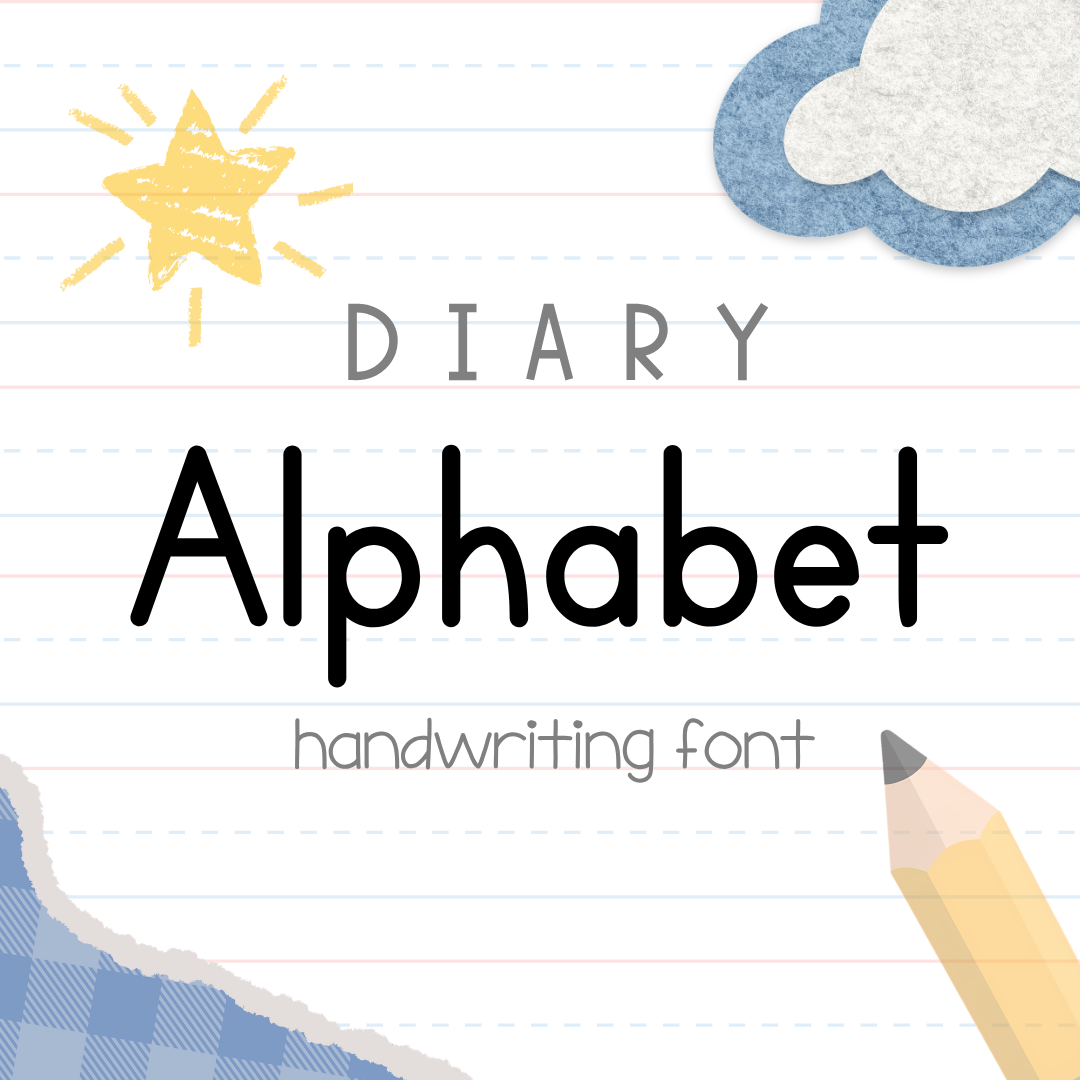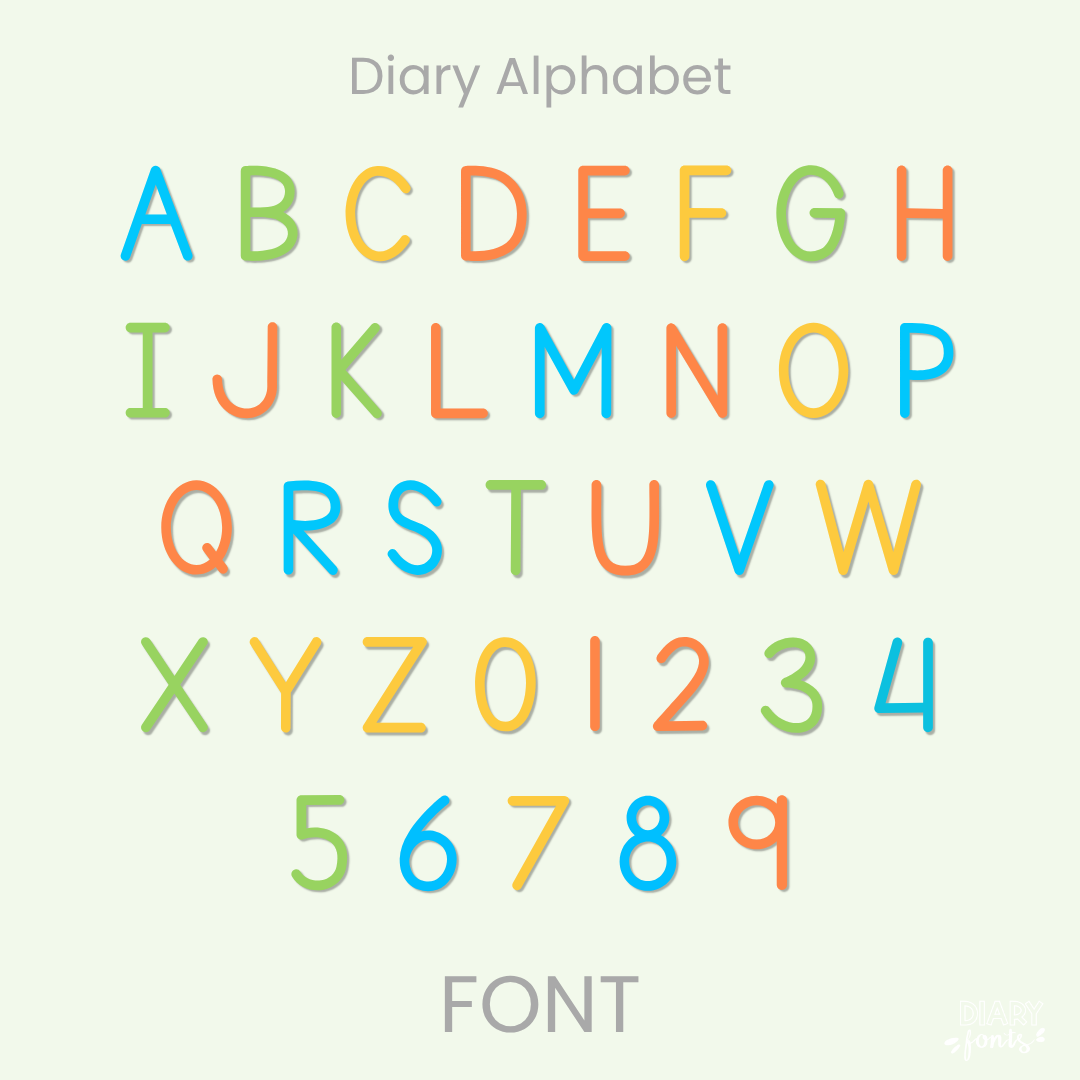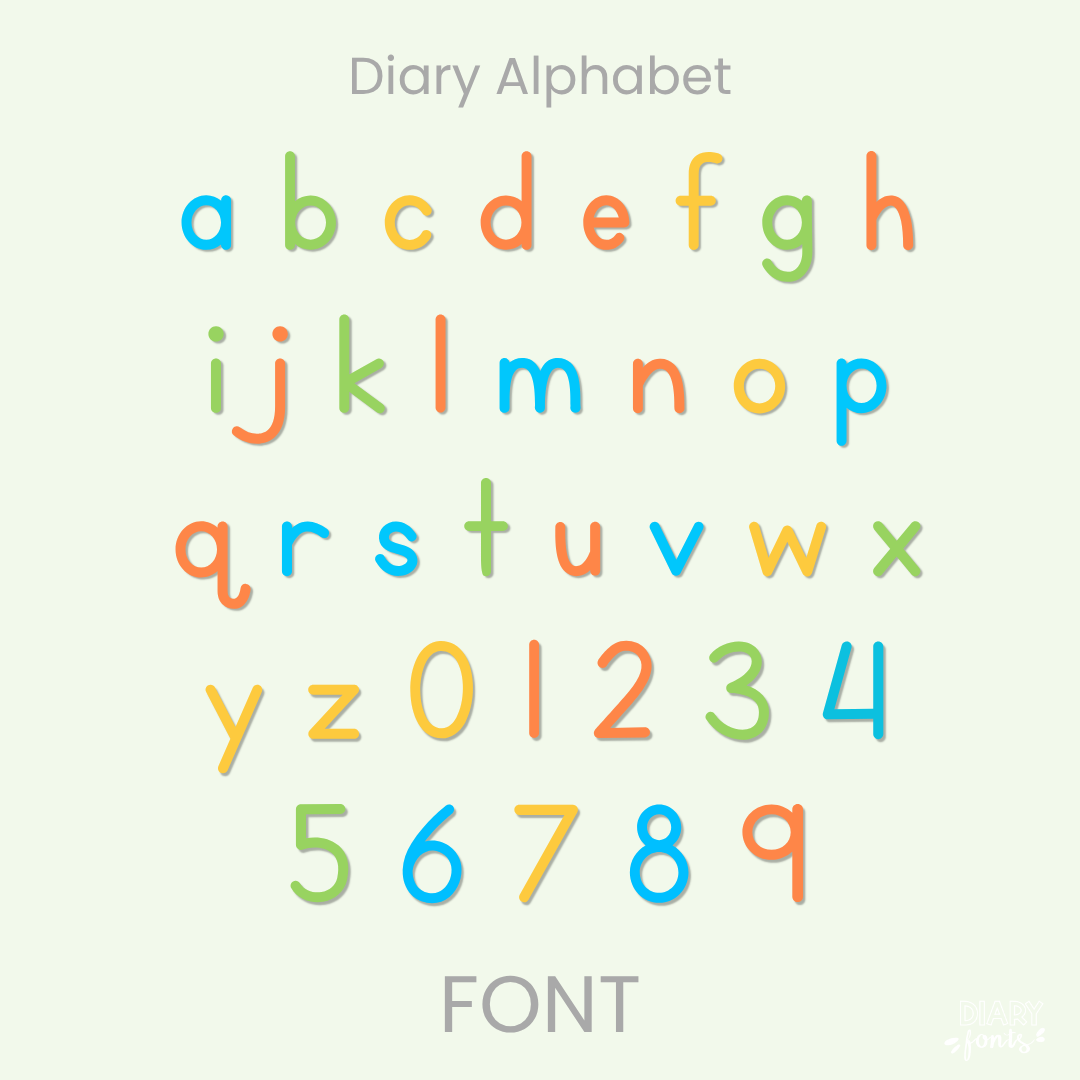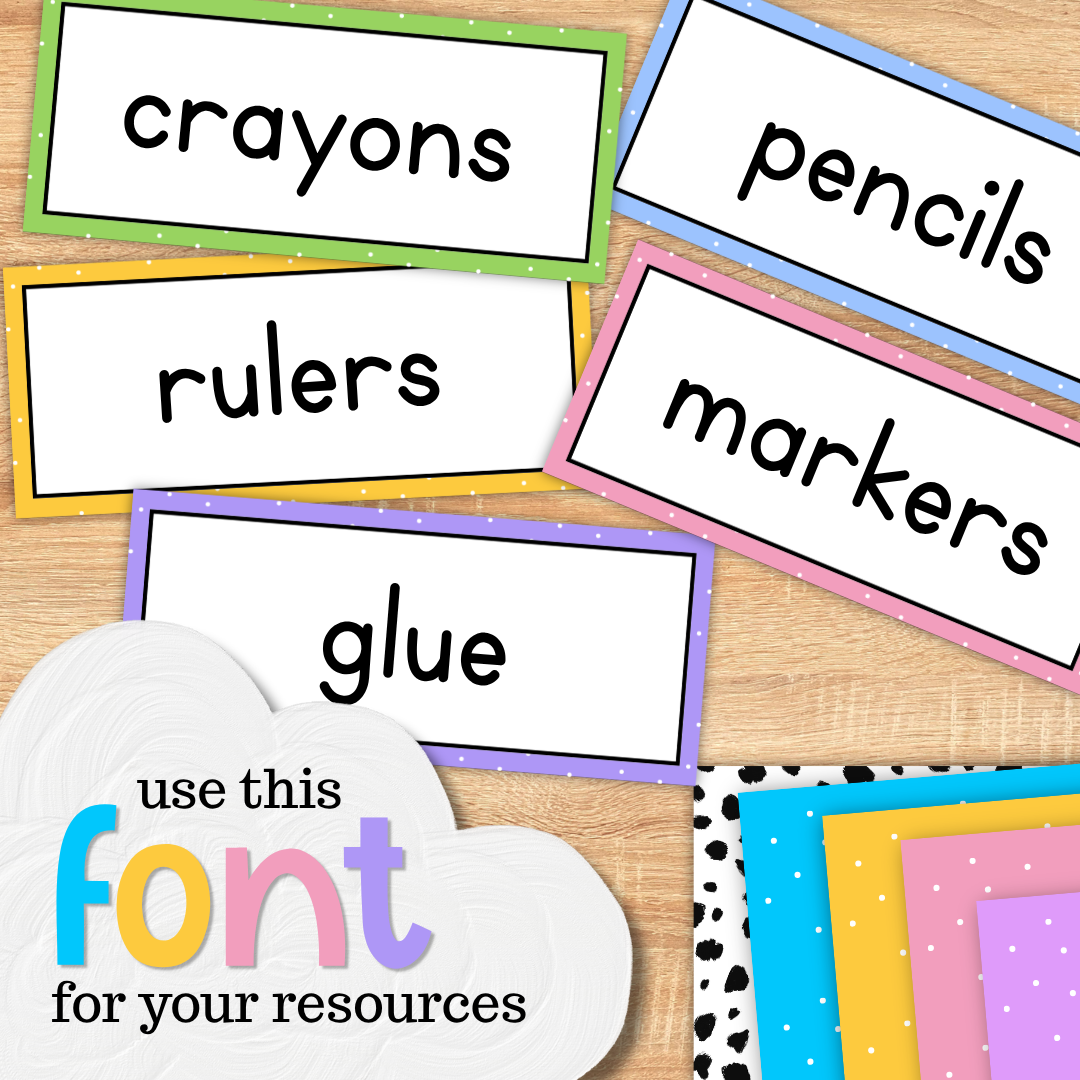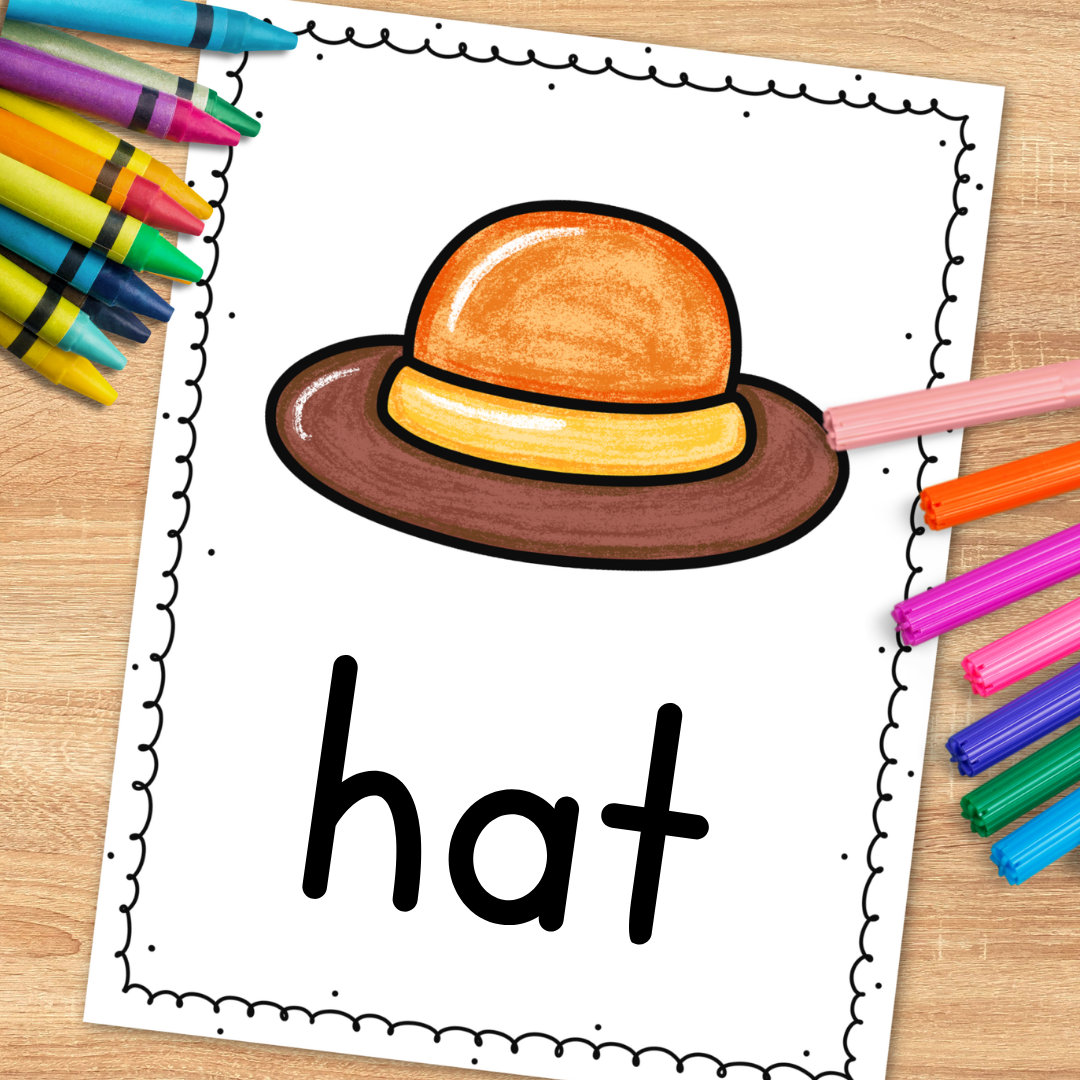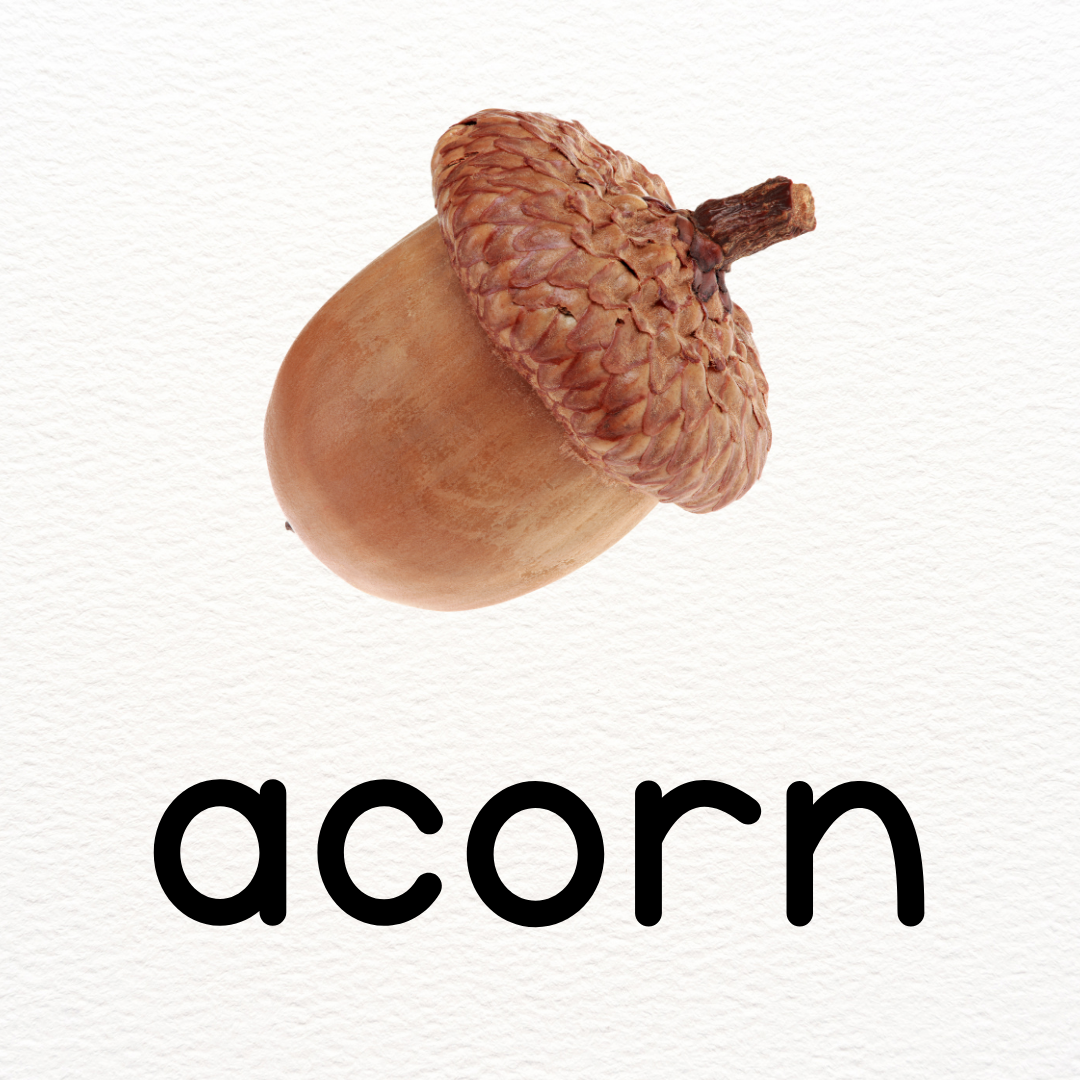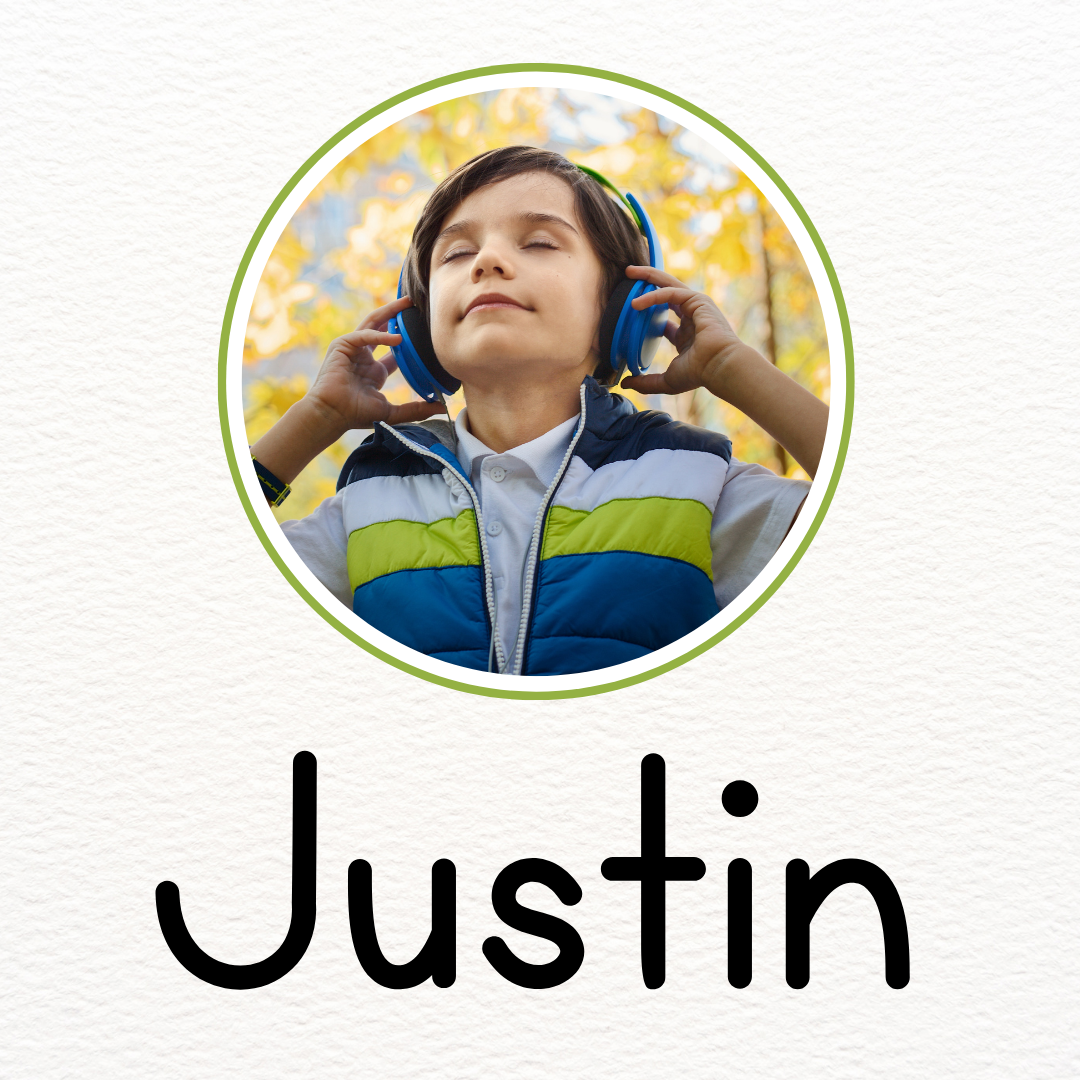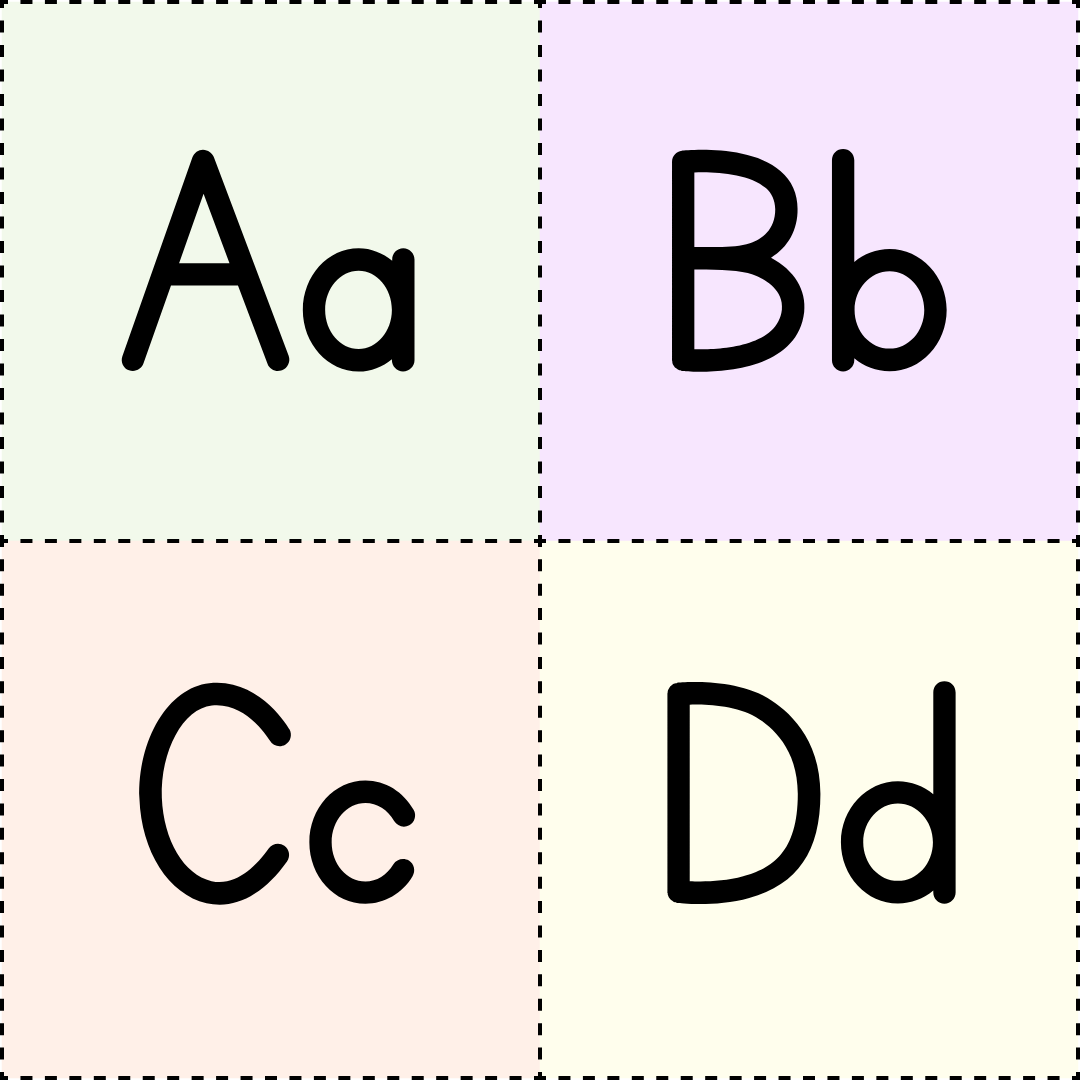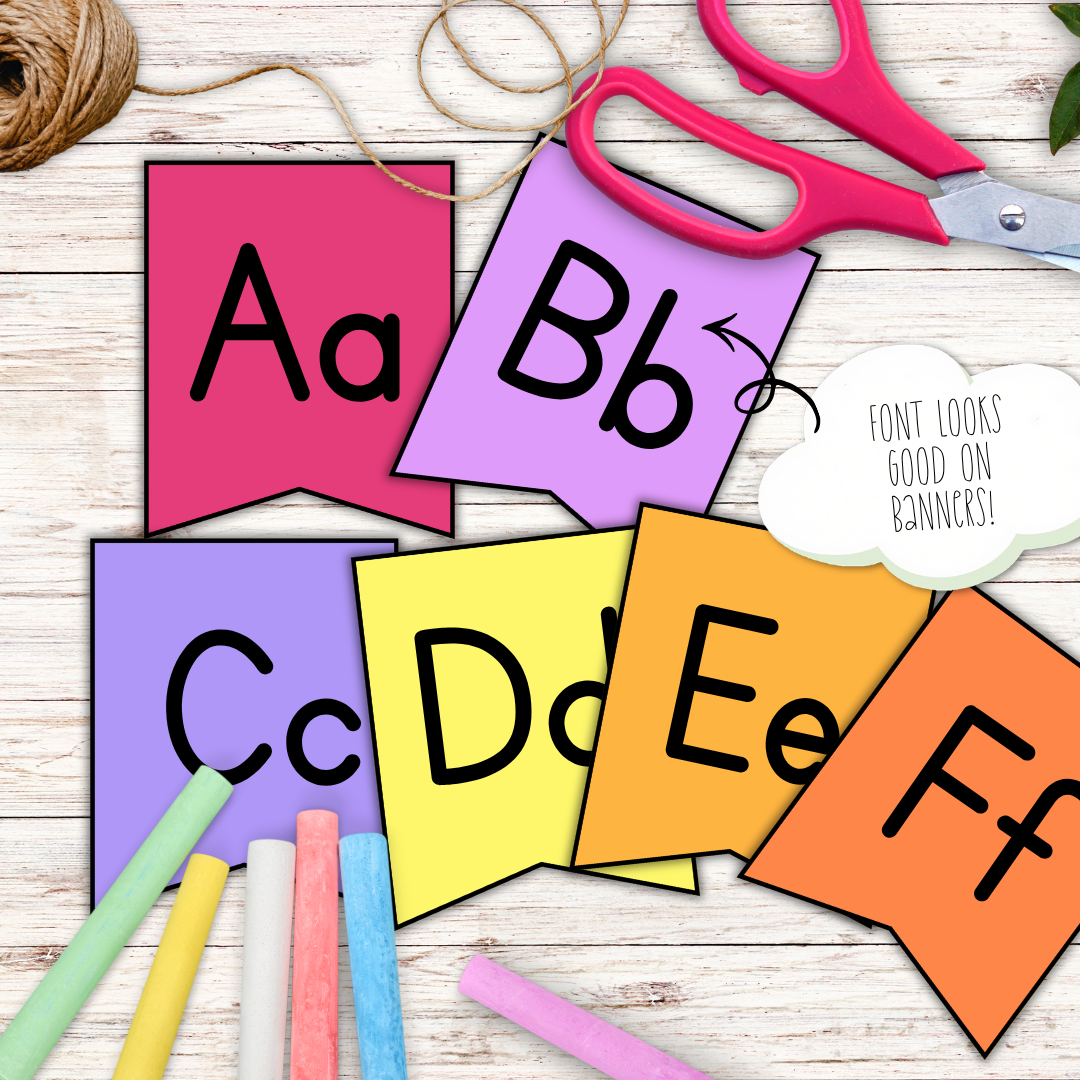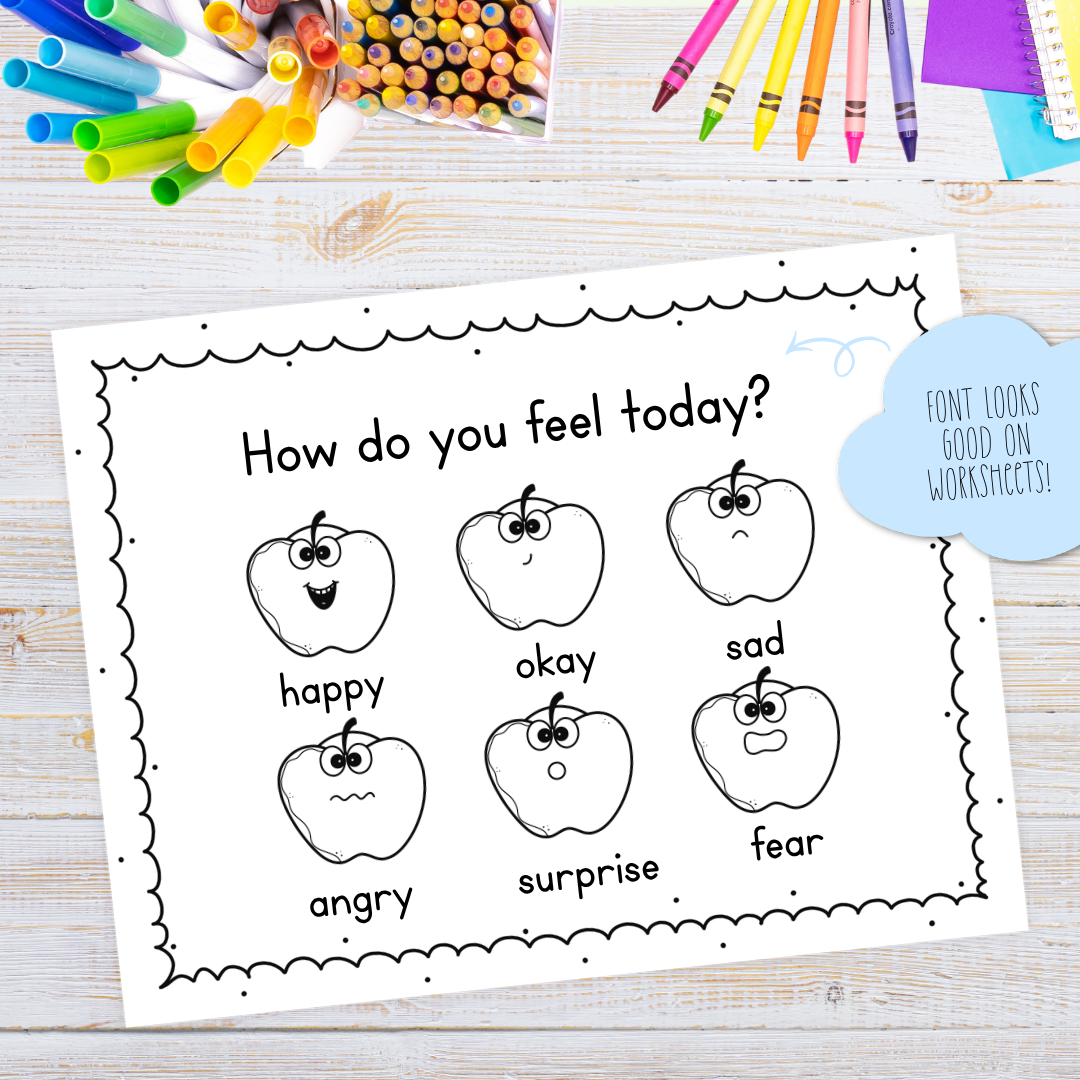
Diary Alphabet – Handwriting Font – Neat Handwritten Font for Teachers
Diary Alphabet is a clean, simple, primary print font and handwritten teacher typeface you need to bring a neat, cheerful, and highly legible look to your daily classroom resources, handwriting exercises, tracing activities, vocabulary sets, and morning slides.
This handwriting font where the lowercase letter height (x-height) equals half of the capital letter height (cap height) follows a standard 1:2 proportion. It’s a clean, architectural, or school-project printing font with a balanced look.
If you’ve been looking for a reliable, go-to primary print font that has all the organic charm of natural handwriting while keeping your document layouts looking incredibly structured, Diary Alphabet is about to become your new absolute favorite design staple. This font is perfect for typing up elementary reading comprehension printables, flashcards, classroom organization labels, morning meeting presentations, and classroom decor.